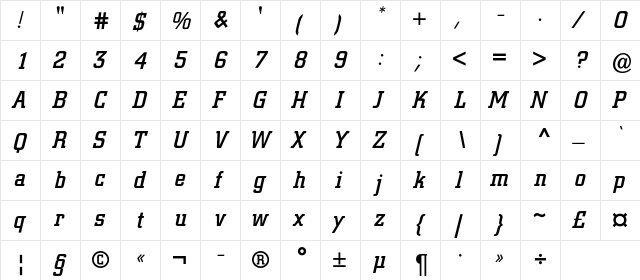
ColiseumC Bold Italic
Design Context for ColiseumC Typeface
ColiseumC offers clean, dependable letterforms without strong stylistic allegiance, making it a practical choice for designers who need flexibility. The slanted form adds forward momentum and visual energy. Its bold stroke weight gives it real presence on the page.
Pro Tip: Try ColiseumC for annotation and caption copy alongside an upright companion — the contrast in angle creates a dynamic but ordered typographic system.